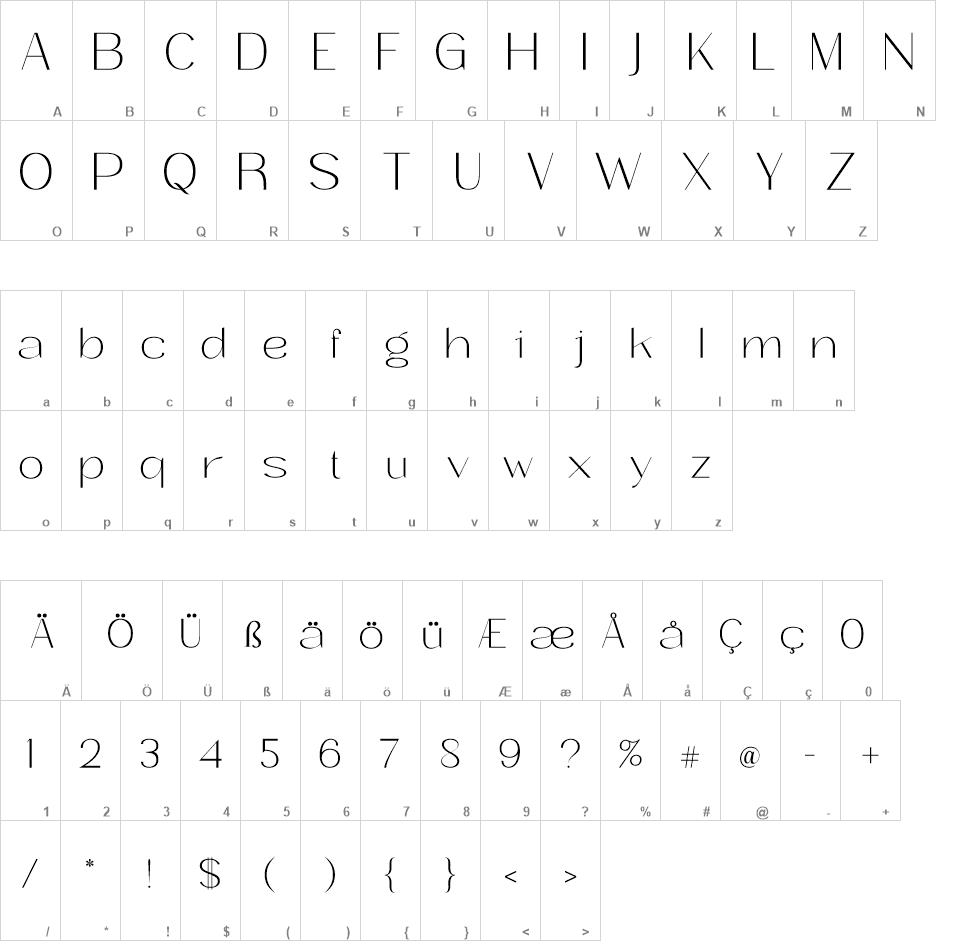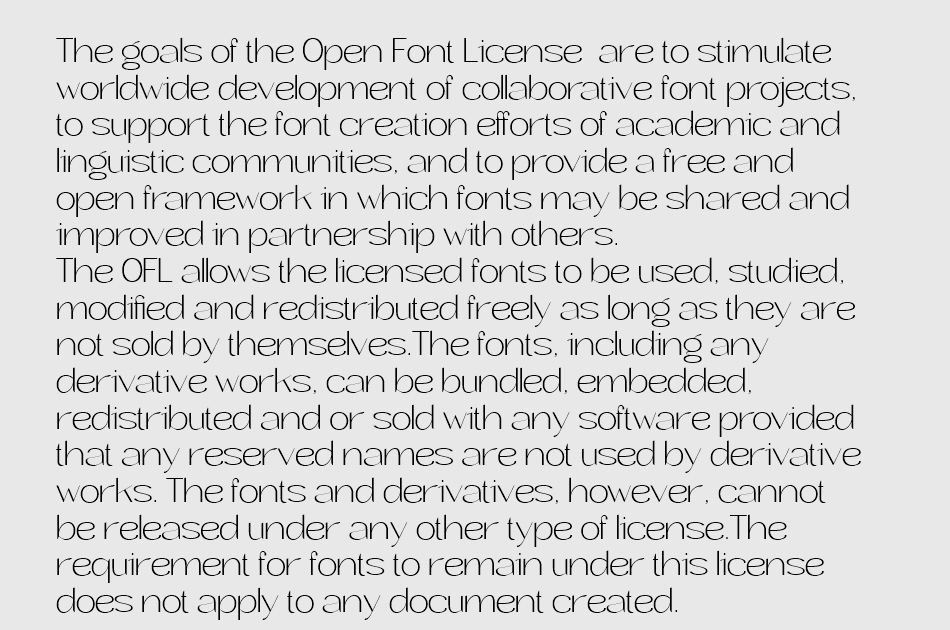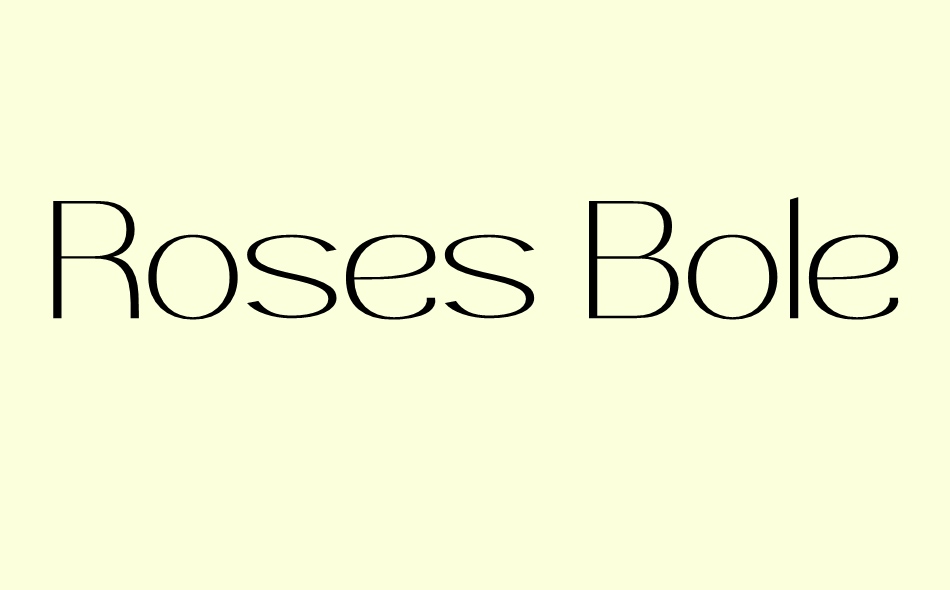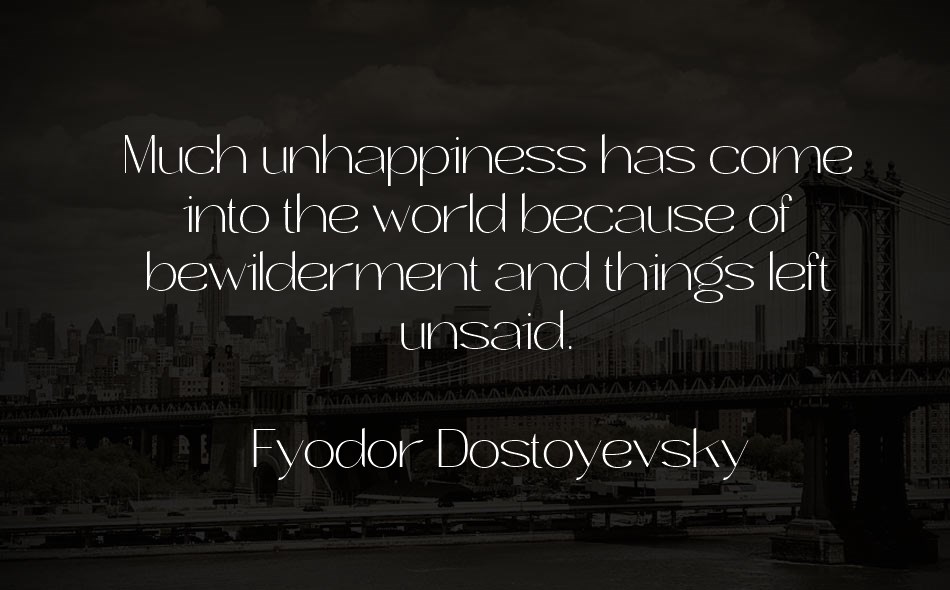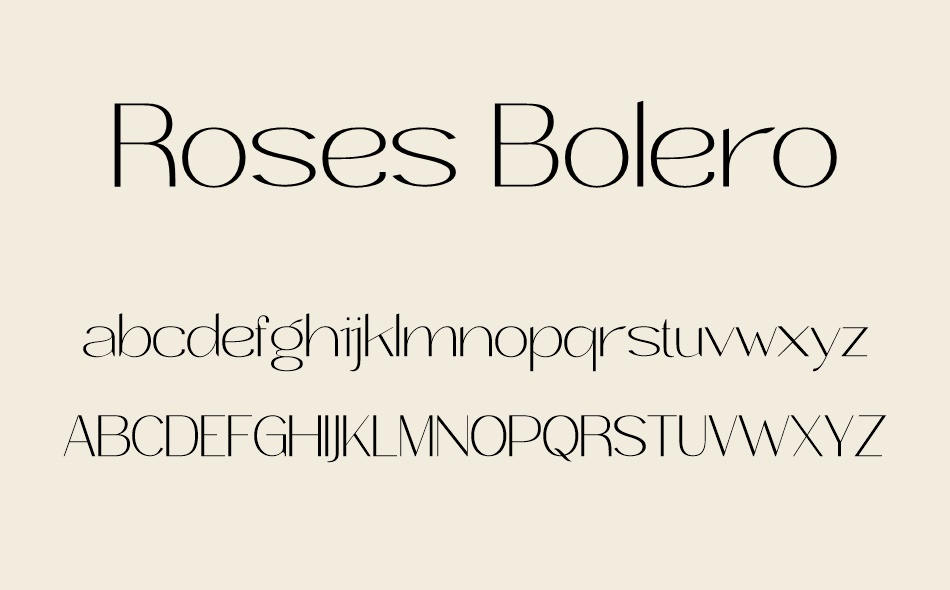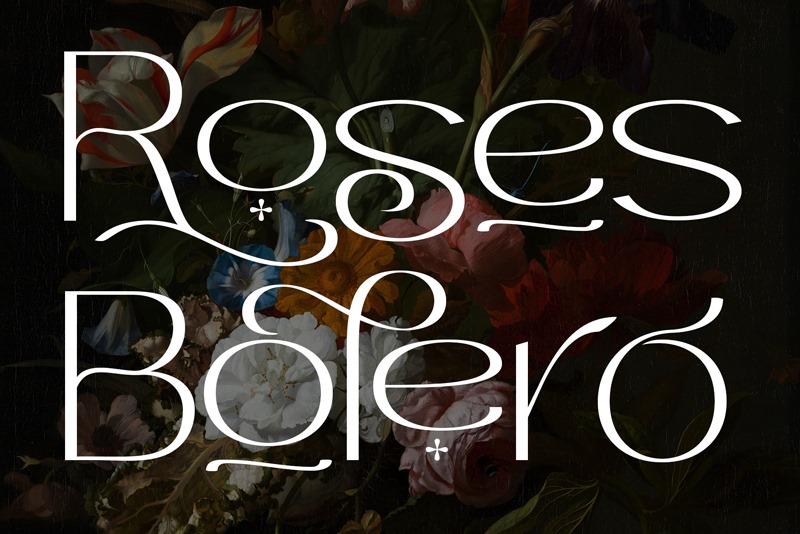
Roses Bolero font
Roses Bolero is a free elegant sans serif font created by AuthenType. This font features a classic and elegant style, perfect for poster design, magazines, beauty branding with a flower-shaped asterisk glyph suitable for your elegant design concepts. This free font is a demo version.